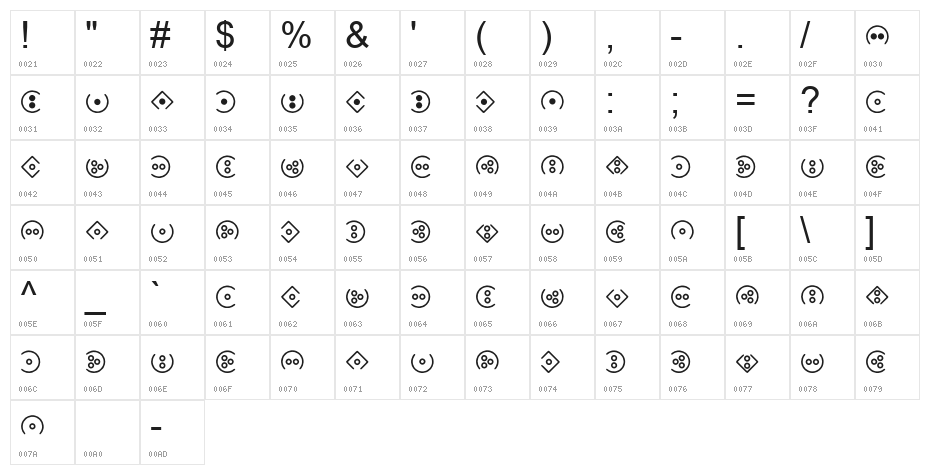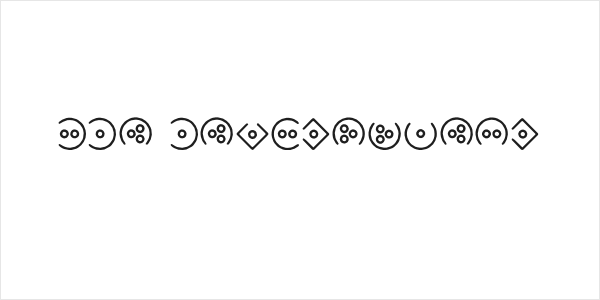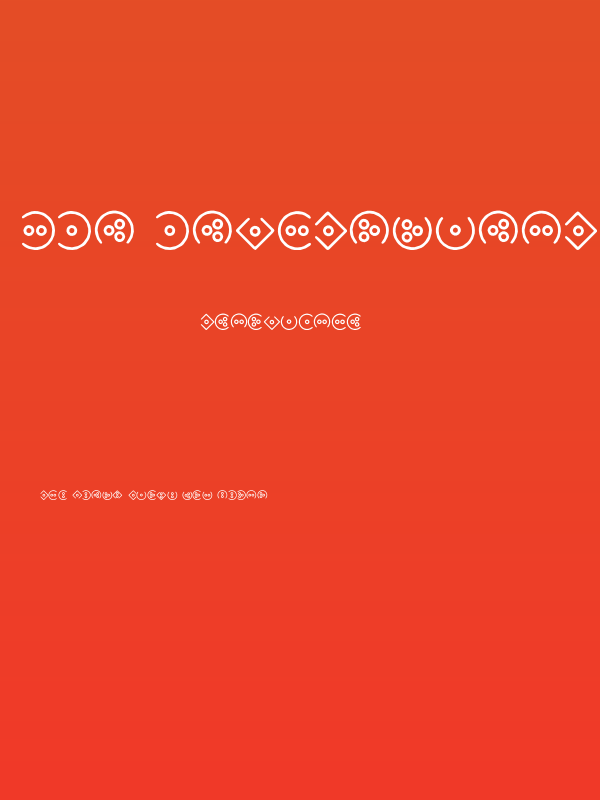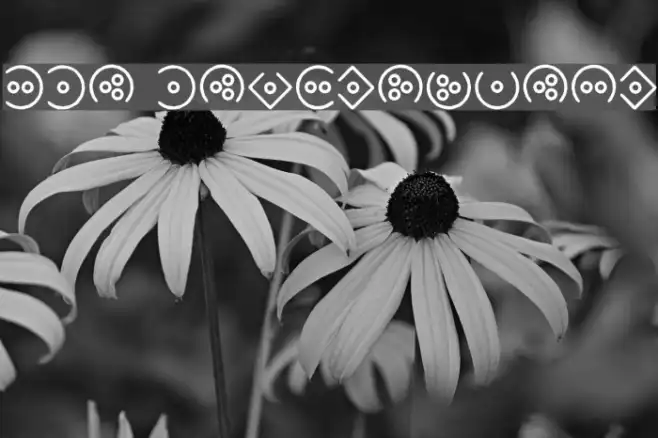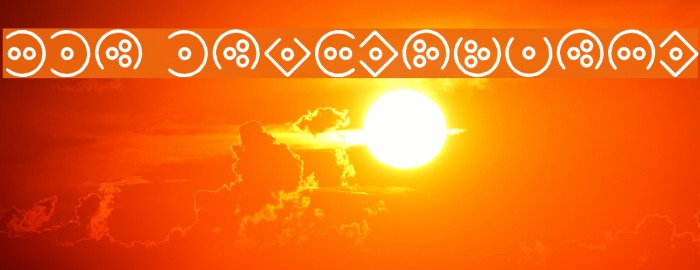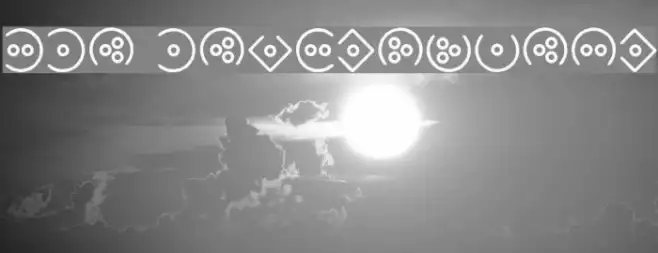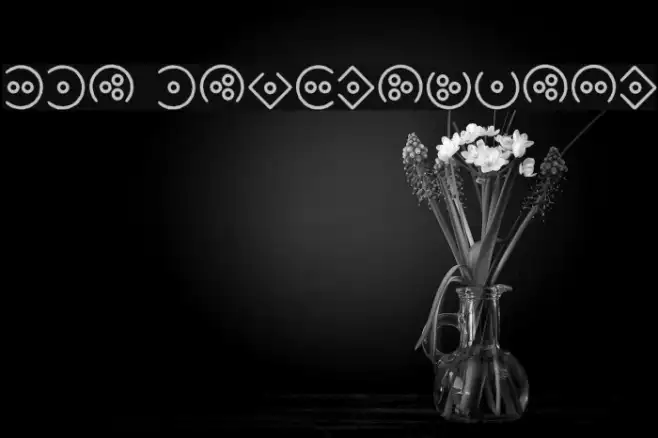
DLI LightScript Font
DLI LightScript Description
This is not a valid font. The image appears to contain a series of symbols or characters that do not correspond to a standard alphabet or numeral system. The design features geometric shapes and patterns, which may be intended for decorative purposes rather than functional typography. The symbols are arranged in a sequence that suggests a code or artistic expression rather than a traditional font set.
| Use Case | Artistic designs, visual art, fictional languages. |
| Proposed Projects | This design could be used for artistic projects, such as creating unique patterns or as part of a visual art piece. It might also serve as inspiration for a fictional language in a creative work. |